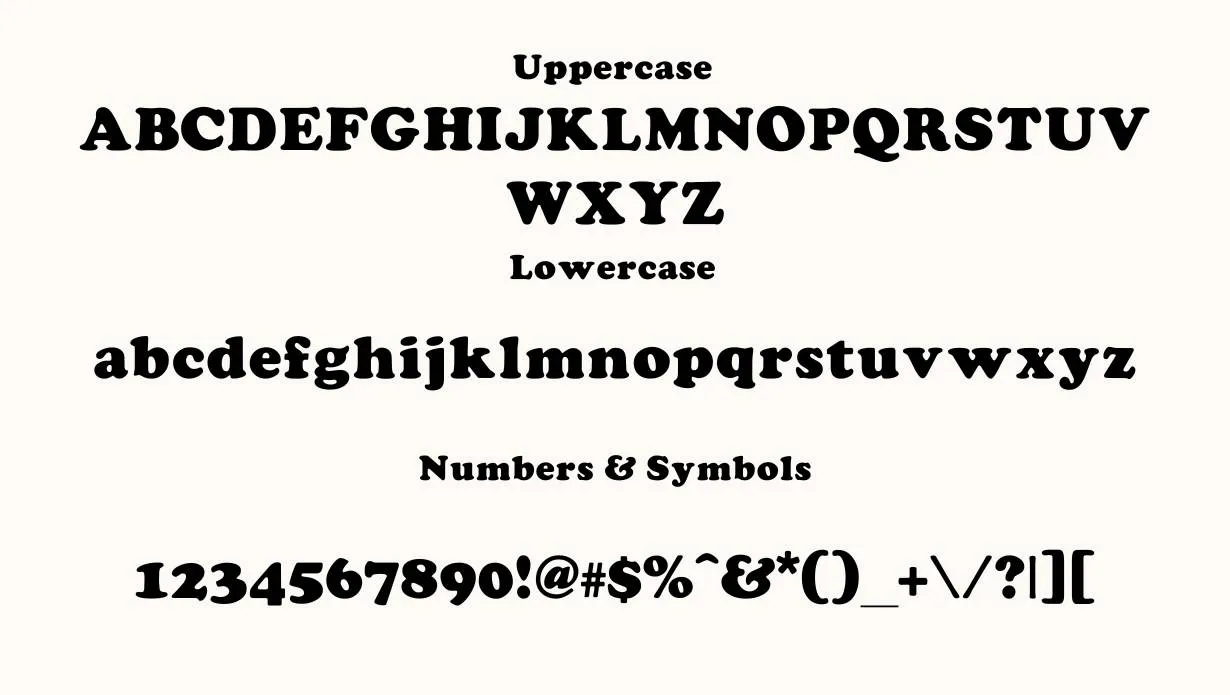
The Cooper Font is a timeless companion in the world of typography, radiating a classic and friendly vibe. Its rounded characters make it suitable for a variety of applications, from crafting welcoming logos in Adobe Photoshop to injecting warmth into your webpage with CSS.
| Name | Cooper Font |
| Designer | Oswald Bruce Cooper |